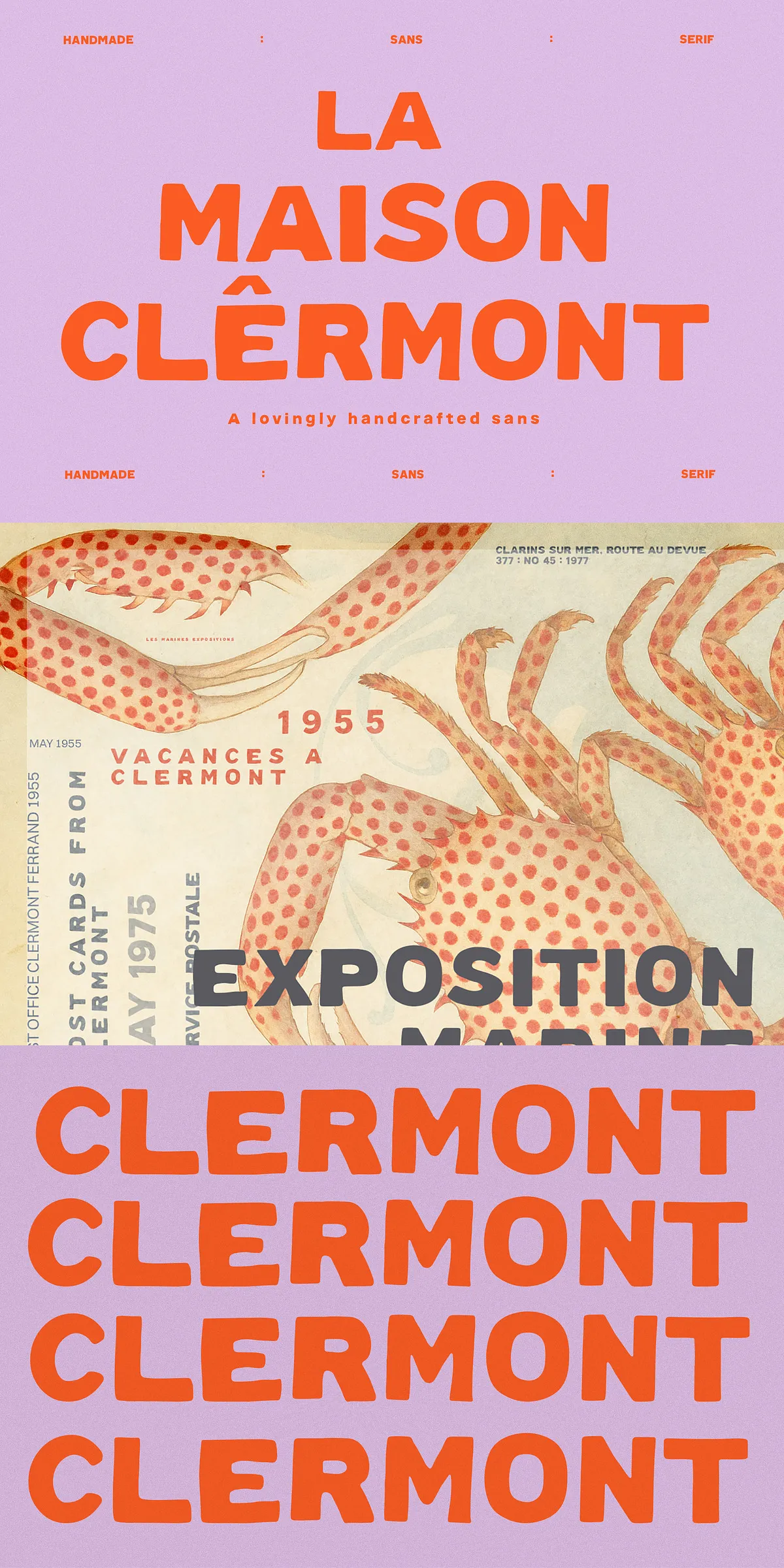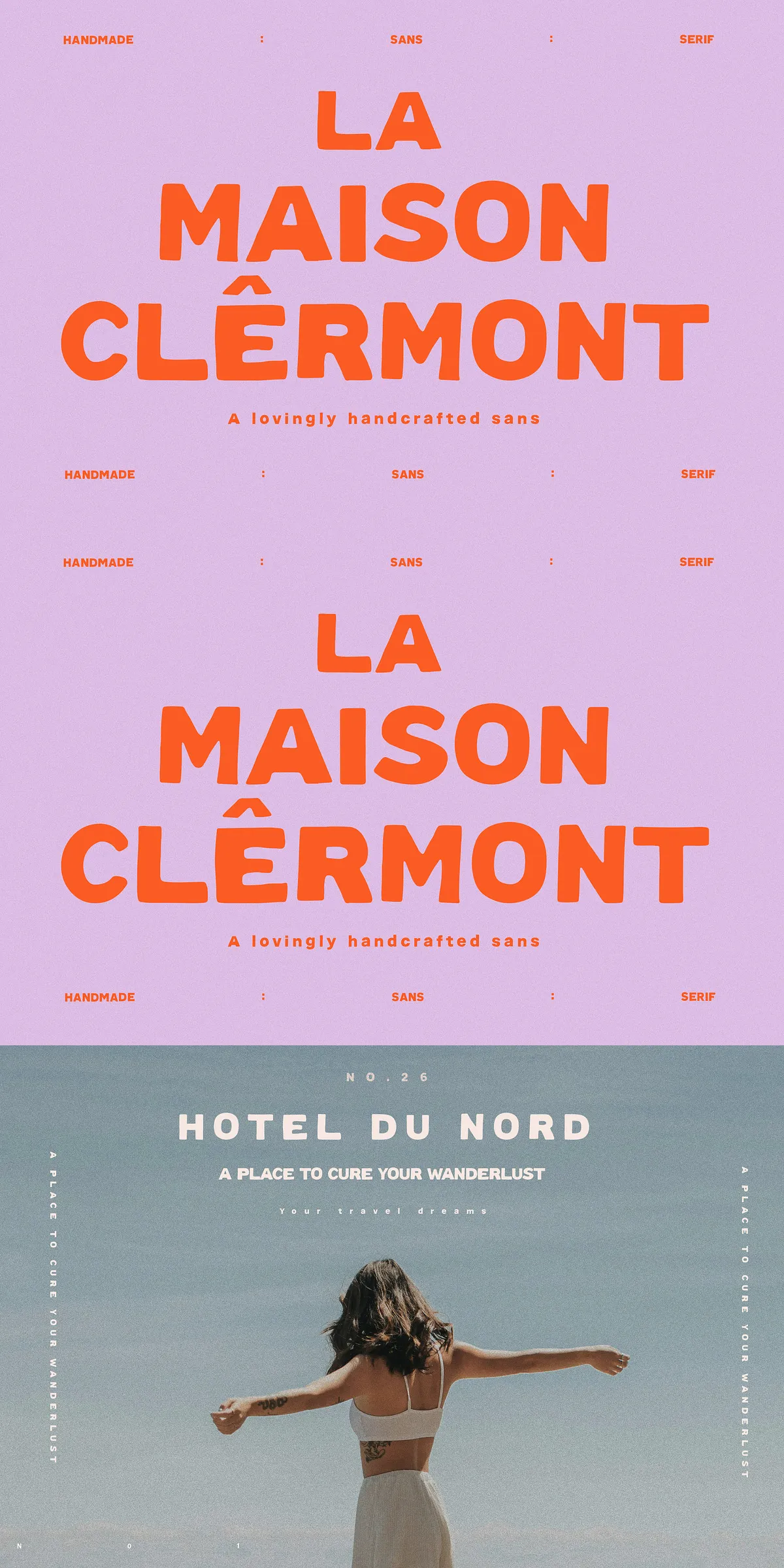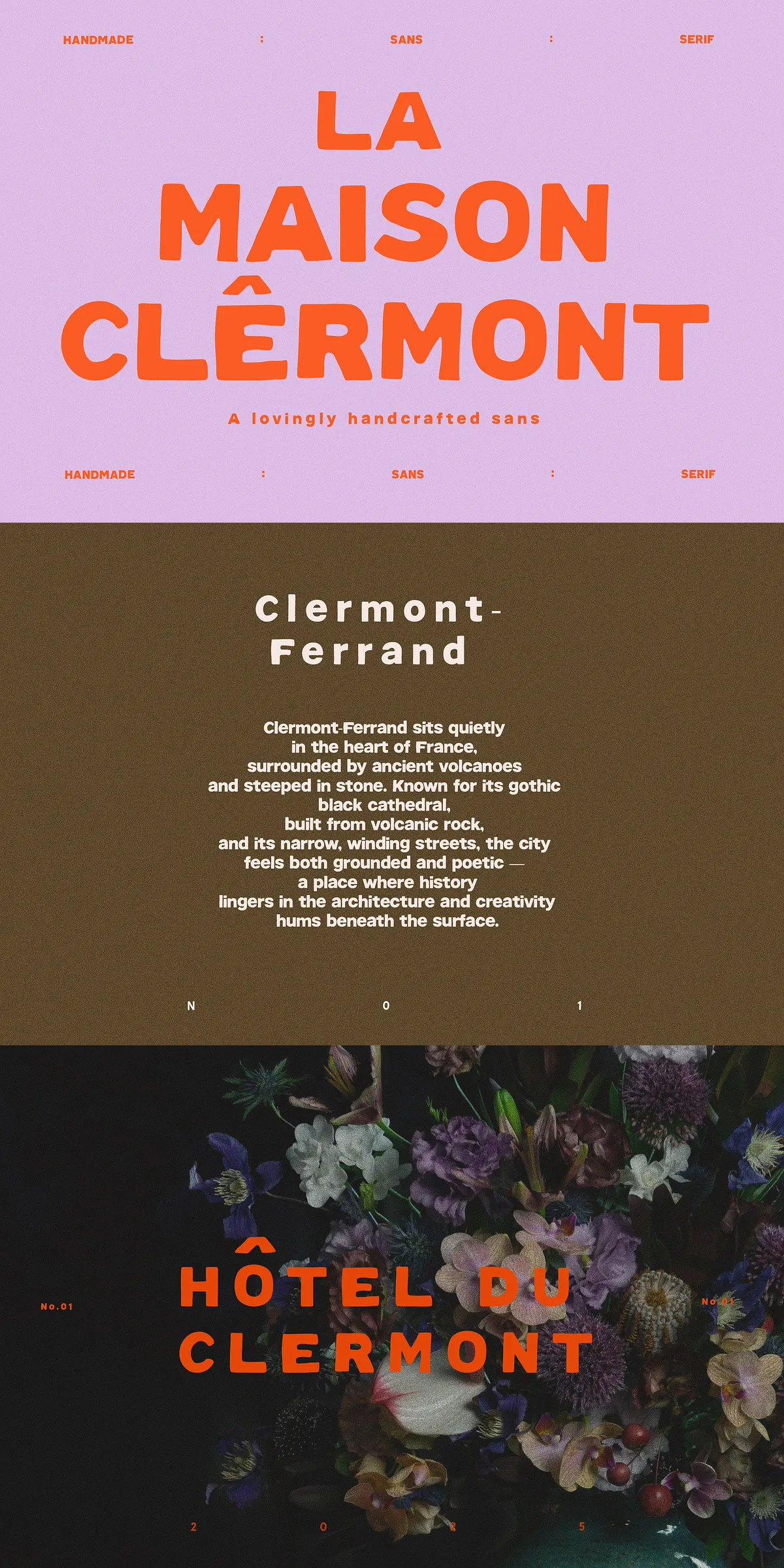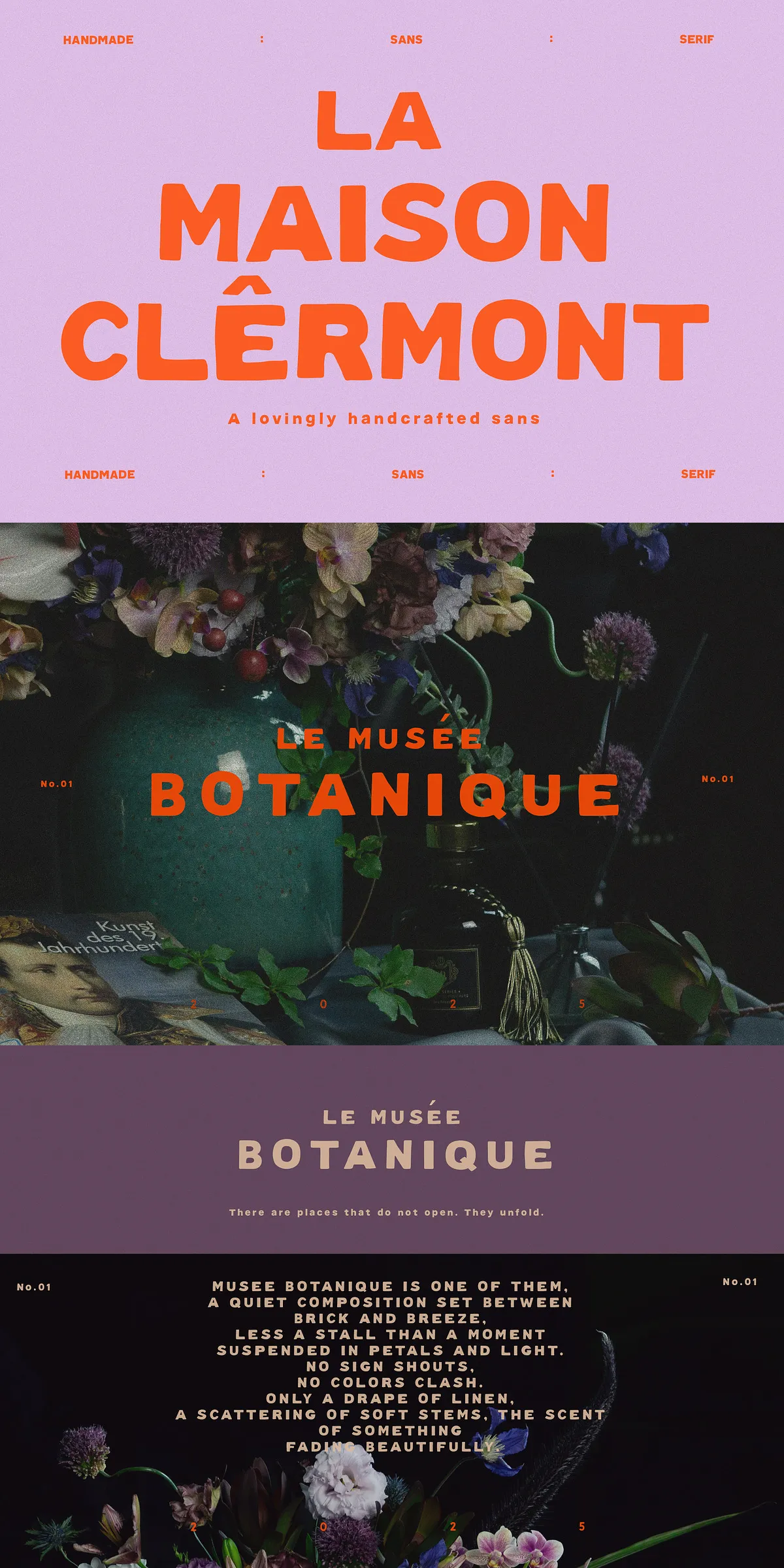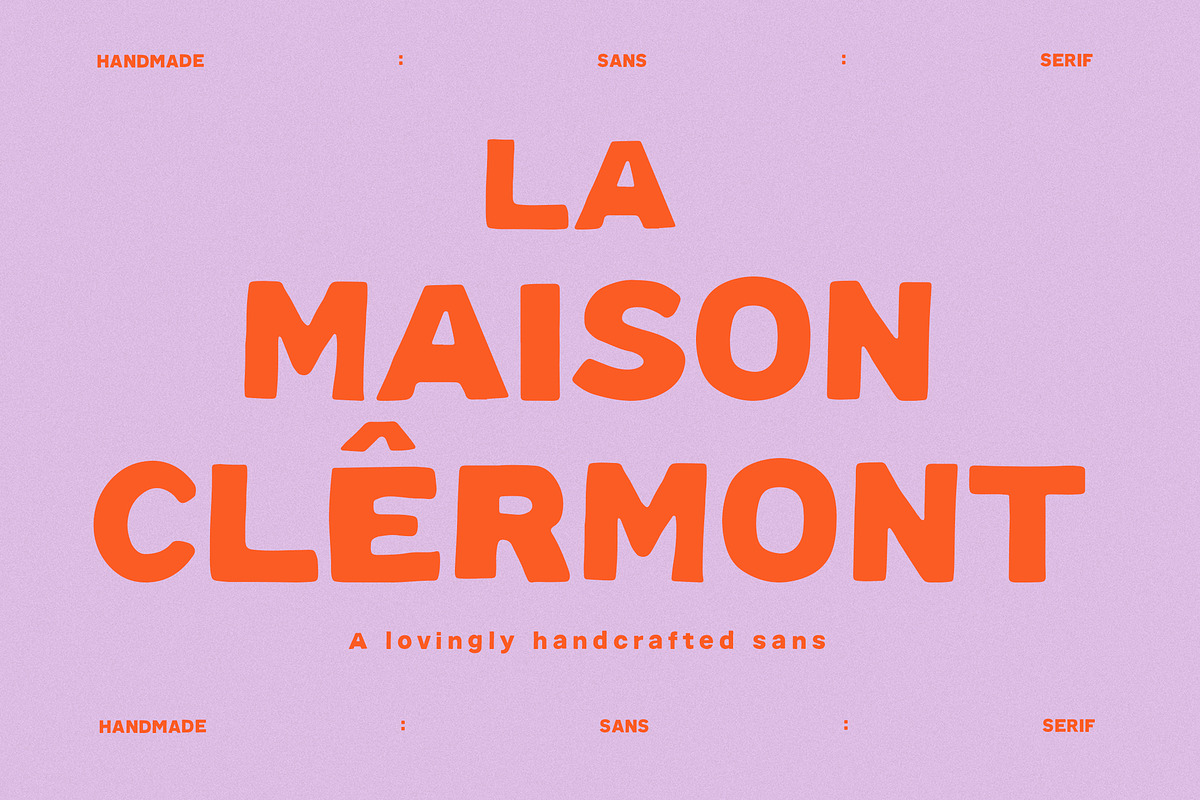
Step into the world of intentional design with Clermont Sans — a meticulously handcrafted serif typeface that breathes life into every word. This is not just a font. It’s a statement of authenticity, a tribute to craftsmanship, and a celebration of human touch in a digital age. Every curve, every stroke, every subtle asymmetry has been shaped with deliberate care, giving Clermont Sans its unique identity: gentle, expressive, and undeniably real.
Bold in presence yet refined in detail, Clermont Sans brings warmth and personality to your designs without ever shouting. It thrives where thoughtfulness matters — in brand stories, artisan packaging, lifestyle branding, and coastal-inspired visuals. Whether you’re designing a boutique label, a summer lookbook, or a mindful product launch, Clermont Sans makes your work feel *meaningful*, not just polished.
Why Clermont Sans Is More Than Just a Font — It’s a Design Philosophy
Clermont Sans was never built for speed. It was crafted slowly, with attention to the quiet beauty of imperfection. Unlike machine-perfect typefaces, it embraces subtle irregularities that evoke a sense of hand-carved elegance — like a signature written with care, or a letter penned on summer linen. These are not flaws. They are features. They are what make Clermont Sans feel alive.
Artisan-Like Details That Speak Volumes
From the softly flared serifs to the uneven baseline and variable stroke thickness, each character tells a story. The ‘a’ has a unique open counter, the ‘g’ features a gently swirled loop, and the ‘y’ leans slightly — all intentional choices that add individuality. This isn’t mass-produced elegance. It’s *artisan* elegance. It makes your brand feel like it was made by a person, not a system.
With a full set of alternate characters included, you can further personalize your text. Swap out standard letters for ornamental versions to create subtle visual rhythm. Use these alternates strategically to emphasize key words, create mood, or differentiate your brand voice — all without breaking the font’s cohesive soul.
Where Clermont Sans Brings Creative Projects to Life
This is where Clermont Sans truly shines — in real-world creative contexts that value emotion, personality, and story. It’s not for every project, but for the right ones, it’s perfect.
1. Artisan & Craft Branding
From handmade candles to ceramic tableware, from natural skincare to organic textiles — Clermont Sans gives your brand a voice that feels honest and grounded. Its character-rich forms evoke tradition, care, and quality, instantly aligning your product with the values of slow, mindful making.
2. Bohemian & Coastal Summer Design
Imagine beachside boutiques, seaside wedding invites, or summer festival posters. Clermont Sans fits perfectly in this aesthetic. Its soft curves and gentle energy evoke seaside breezes, sun-bleached paper, and the quiet luxury of slow living. It captures the mood of Mediterranean villages, coastal retreats, and free-spirited creativity.
3. Editorial & Lookbook Typography
Use Clermont Sans to set the tone for lifestyle magazines, seasonal editorials, or digital lookbooks. It stands out in a sea of generic fonts, adding depth and emotion to captions, headlines, and pull quotes. Its personality helps readers connect with the story behind the image.
4. Packaging That Tells a Story
On a product box or label, Clermont Sans transforms packaging from a container into a narrative moment. It invites the customer to pause, to feel. Whether used for a small-batch jam, a handmade soap, or a curated gift box, it signals that what’s inside is special — not just because it’s good, but because it was made with care.
5. Personal Branding & Creative Portfolios
For artists, designers, or content creators who value authenticity over polish, Clermont Sans makes your personal brand feel genuine. Use it in your website header, bio, or signature to communicate your values: thoughtfulness, integrity, creativity.
Pro Tips for Maximizing the Impact of Clermont Sans
To get the most out of this expressive font, follow these proven practices:
- Use at 24pt or larger — Clermont Sans reveals its full character at display sizes. Small text loses its soul.
- Pair with clean backgrounds — White, off-white, or soft pastels let the font breathe and highlight its texture.
- Limit your use — One or two typographic elements per project maximize impact. Don’t overuse alternates — let them speak when needed.
- Test print quality — For physical output, use high-resolution printing to preserve fine details and subtle strokes.
- Use in context — Place Clermont Sans in real design mockups to see how it interacts with images, colors, and spacing.
Elevate Your Design with a Font That Feels Human
Clermont Sans isn’t just about aesthetics — it’s about connection. It invites your audience to engage not just with your message, but with your intention. It’s for brands that don’t want to blend in. They want to be remembered. Not for loudness, but for depth.